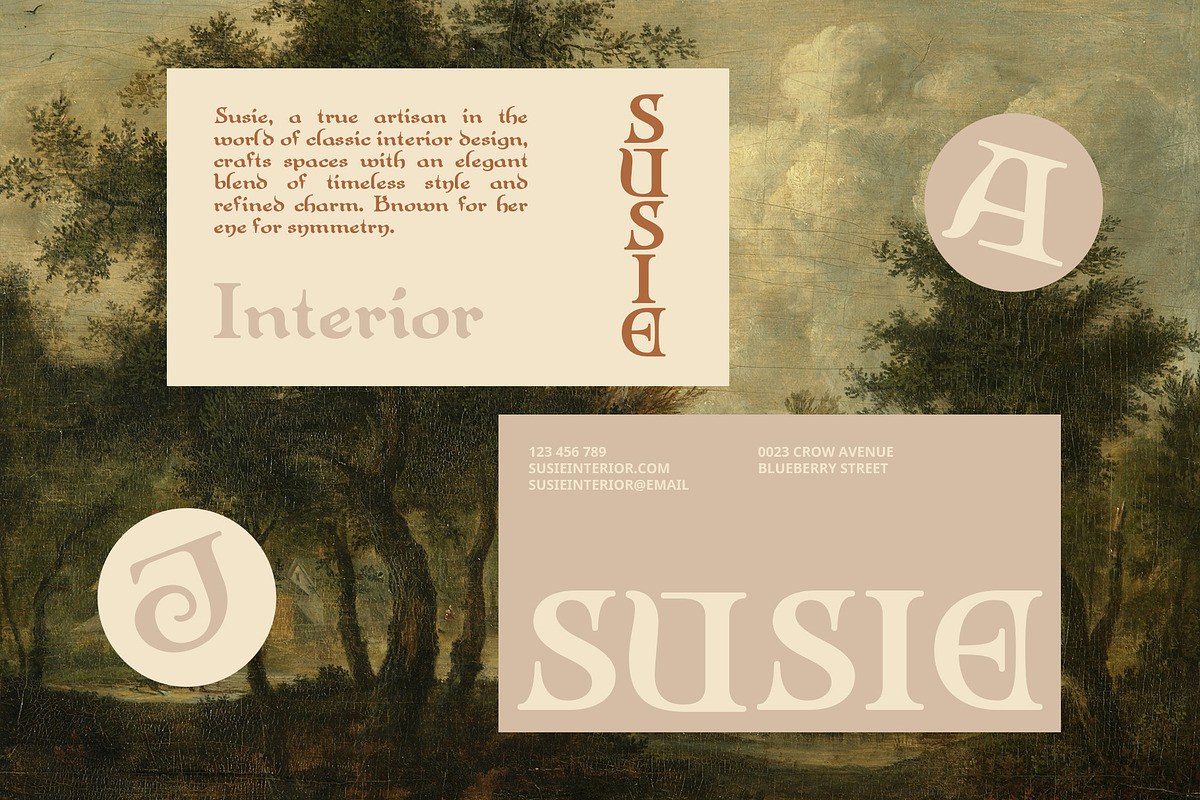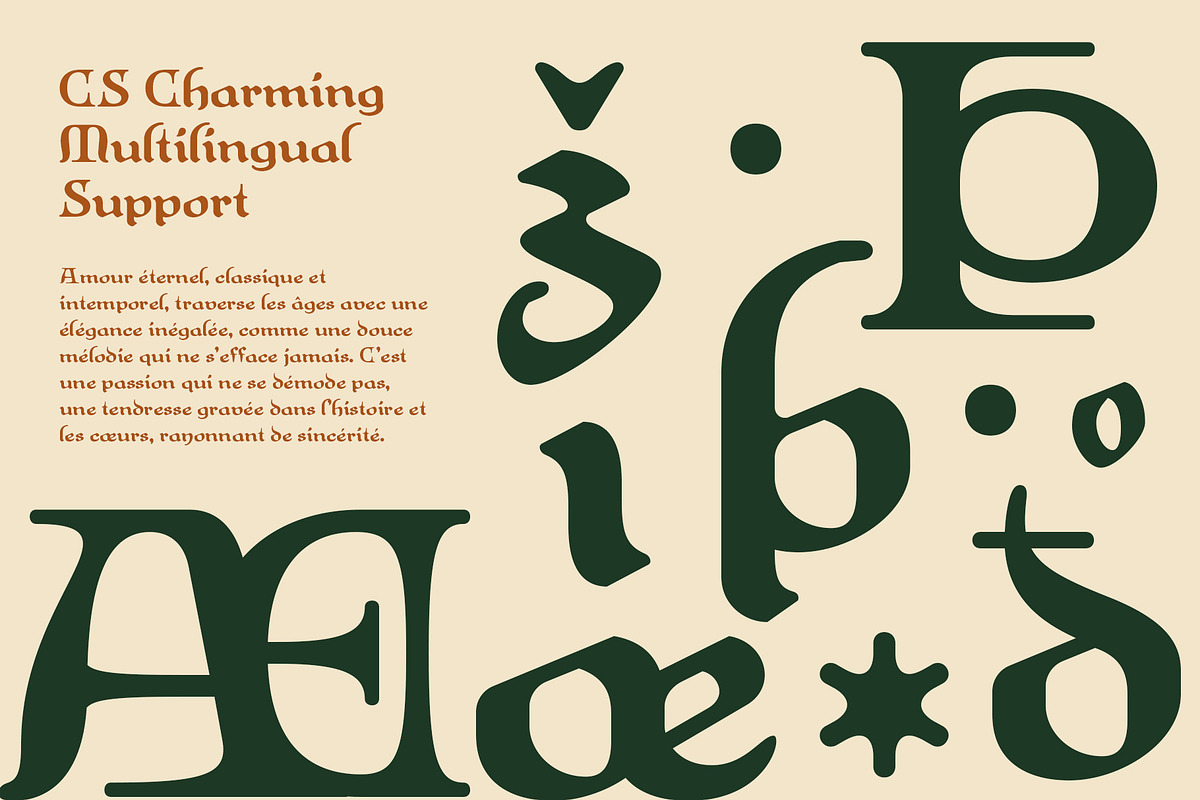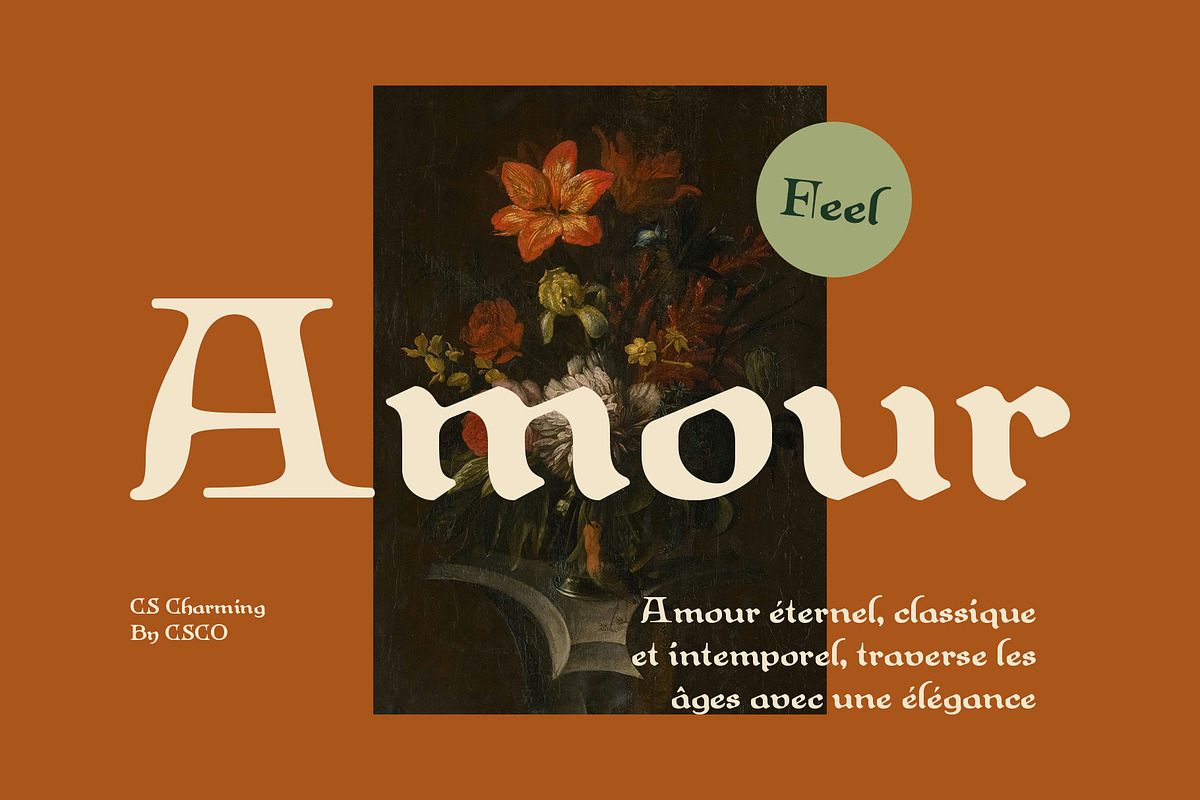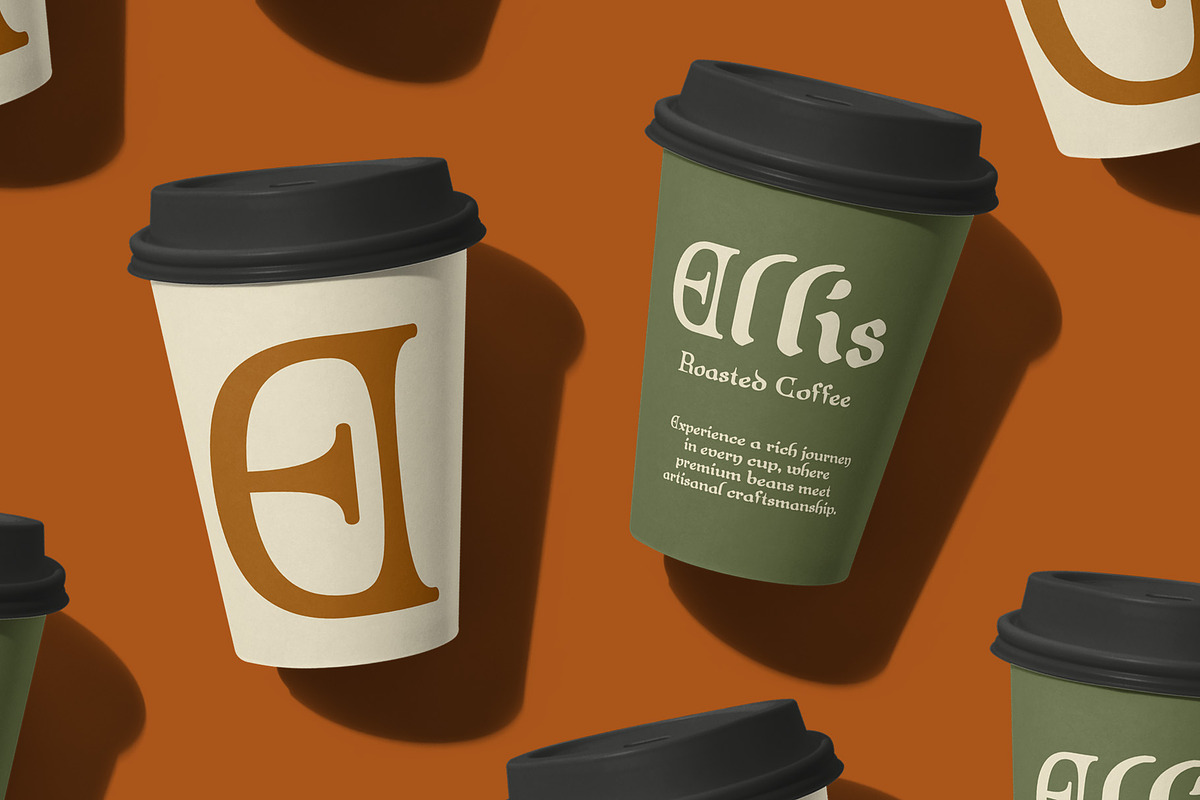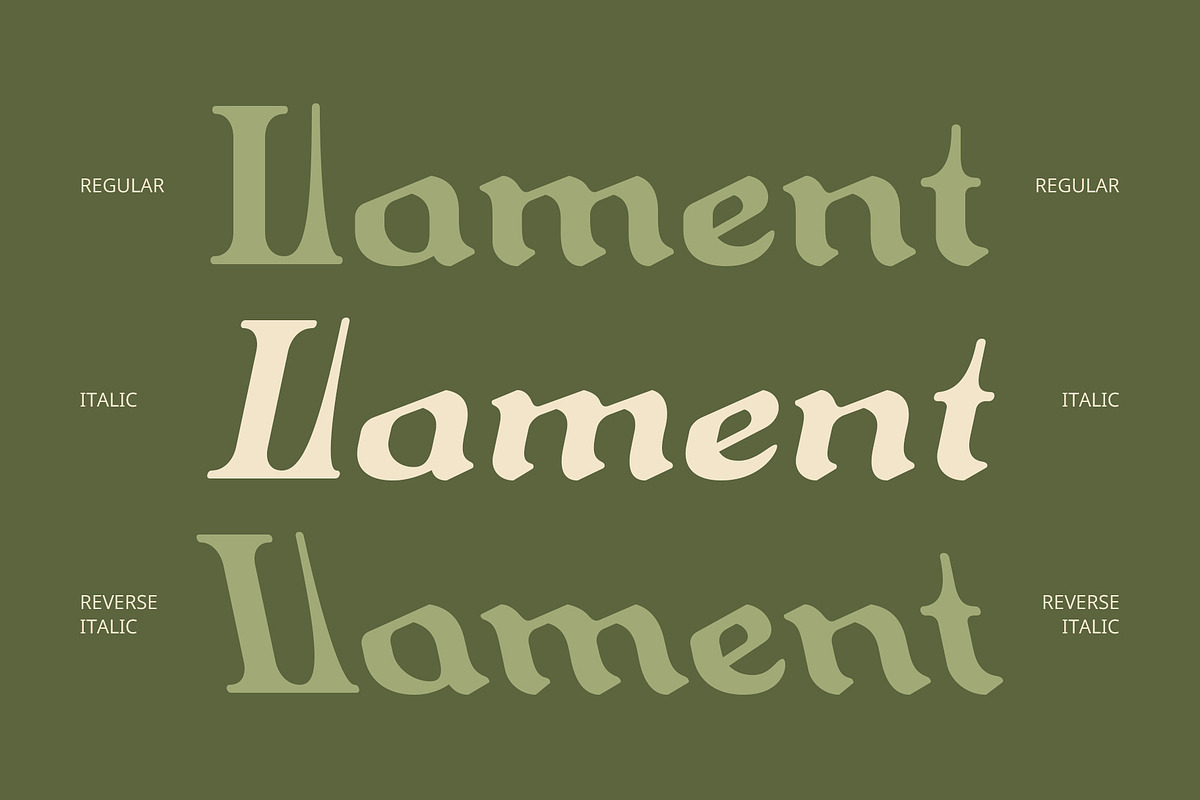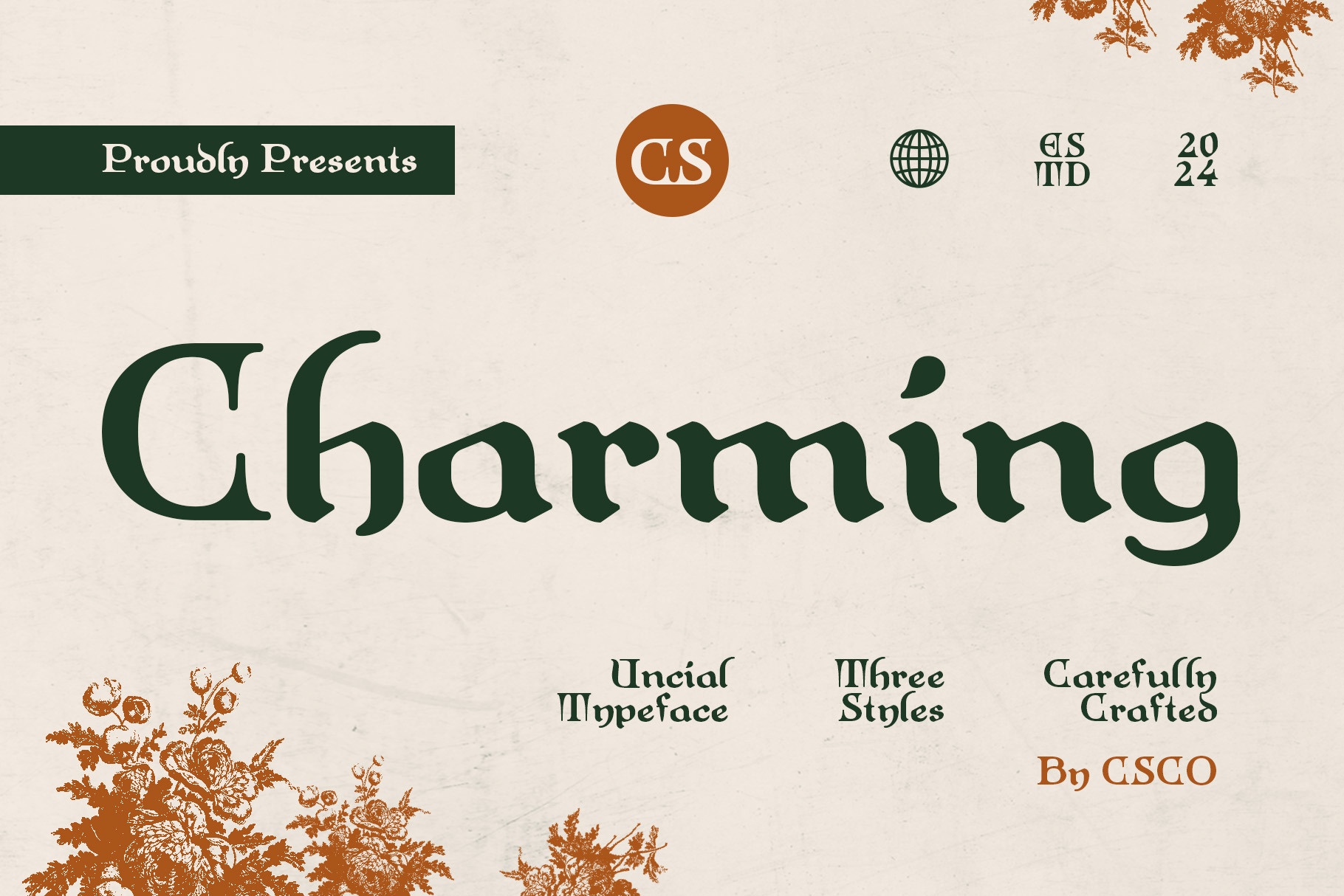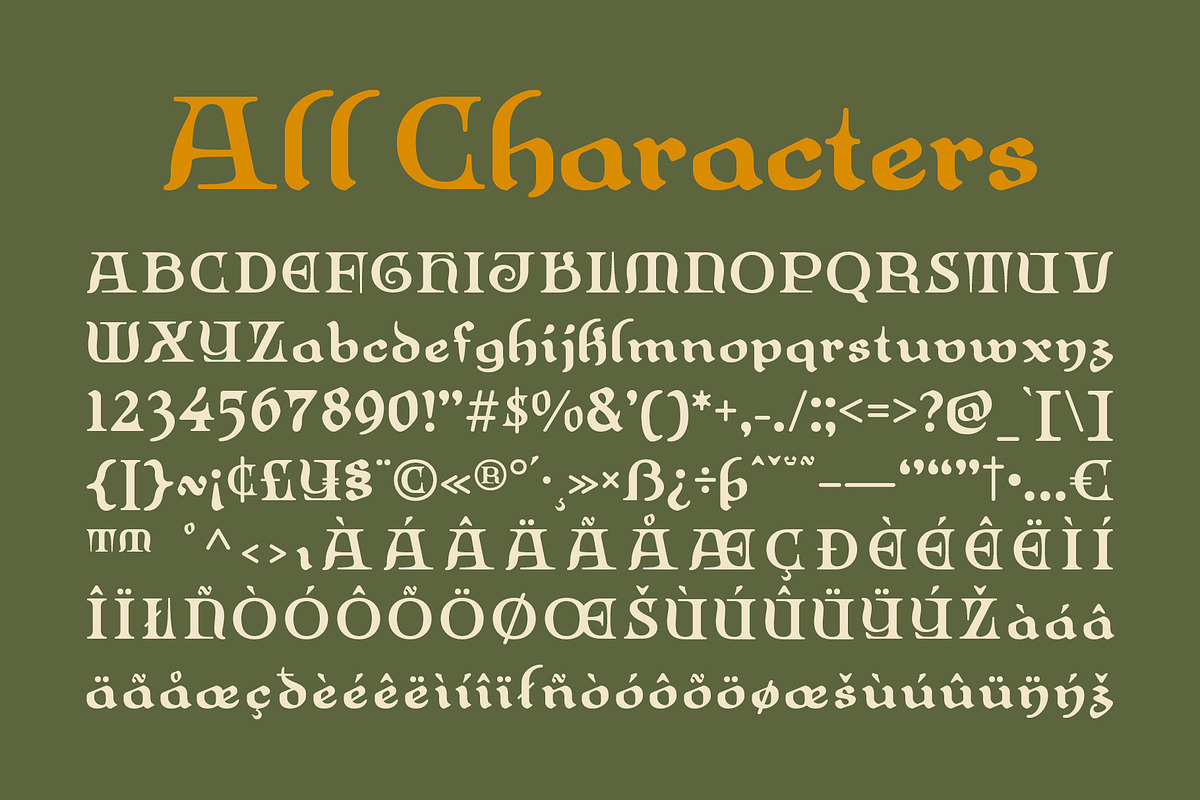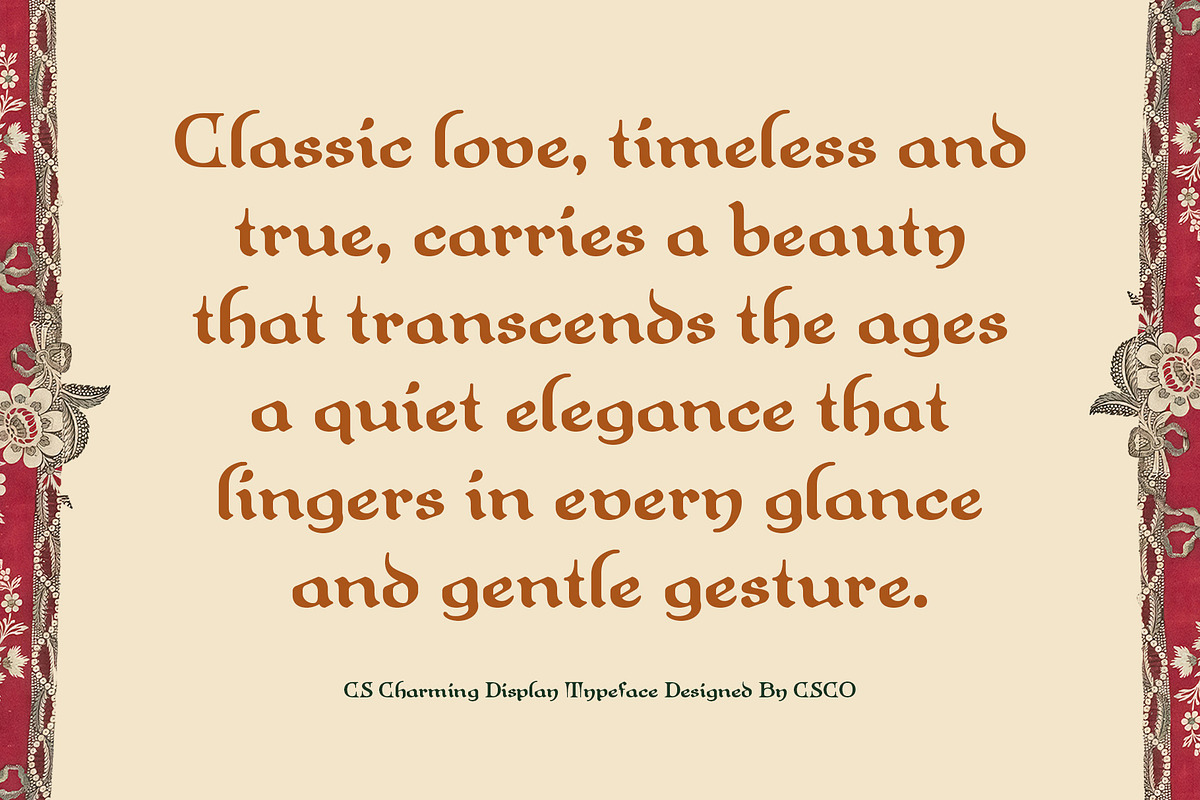
CS Charming – Uncial Font
Nostalgic Elegance CS Charming is a classic display font that beautifully showcases uncial forms, capturing the essence of letters inspired by medieval handwriting. With its smooth curves and thick lines, this font exudes a nostalgic and elegant atmosphere, making it an ideal choice for designs that aim to evoke a sense of history and tradition. Its timeless appeal adds a touch of sophistication to any project, inviting viewers to appreciate the artistry of typography.
Artistic and Unique Letter Shapes The unique and artistic letter shapes of CS Charming distinguish it from conventional fonts, offering a distinctive character that enhances any design. Each letter embodies a sense of craftsmanship, reminiscent of the meticulous attention to detail found in ancient manuscripts. This font is particularly well-suited for formal invitations, vintage-themed branding, and artistic projects that celebrate the beauty of classic typography.
Versatile Applications Whether used for wedding invitations, book covers, or heritage branding, CS Charming brings a refined elegance to a variety of applications. Its ability to convey a historical impression makes it perfect for designs that wish to transport viewers to a bygone era. Additionally, its striking letterforms can elevate promotional materials, greeting cards, and decorative projects, making each design memorable.
- CS Charming Regular
- CS Charming Italic
- CS Charming Reverse Italic